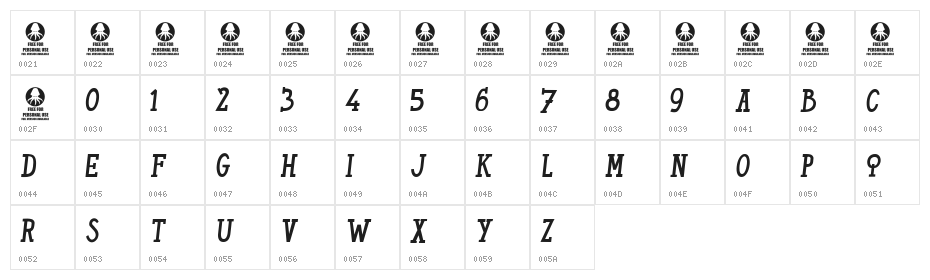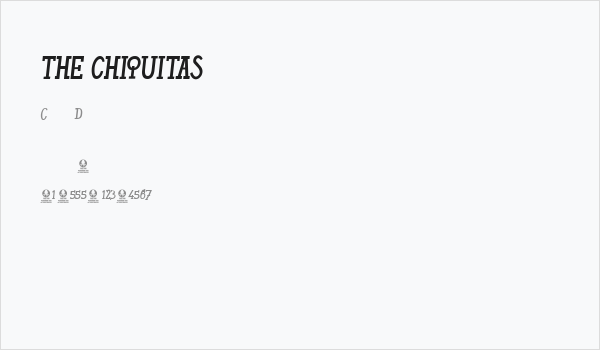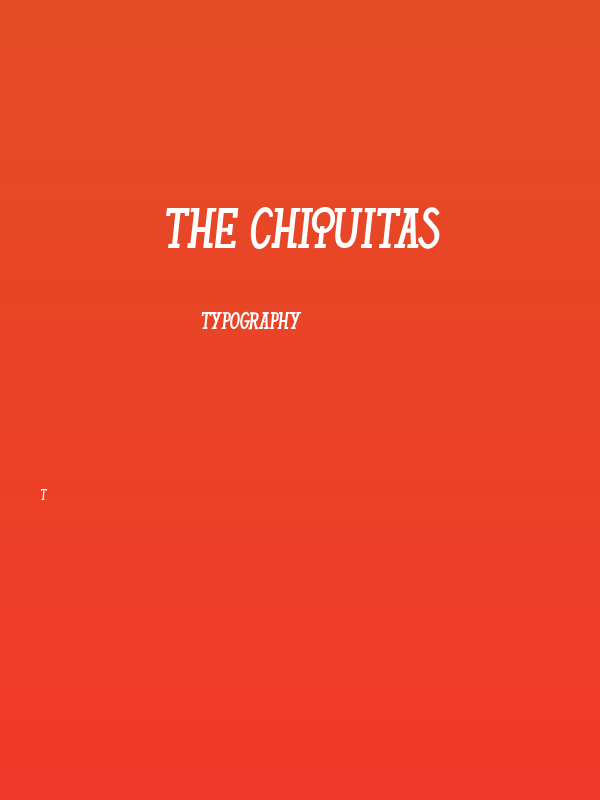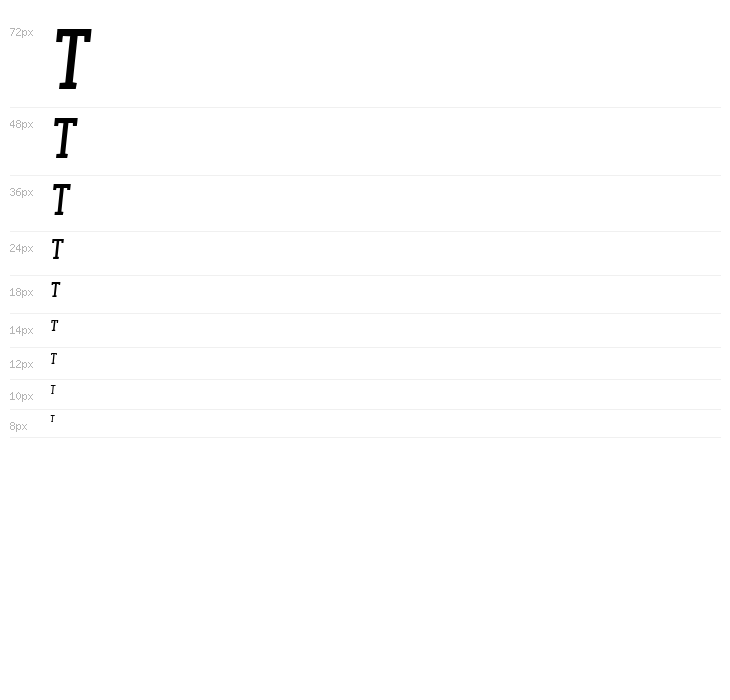
THE CHIQUITAS Font
THE CHIQUITAS Description
This font features a bold and dynamic style with a strong presence. The characters are slightly condensed, giving them a compact appearance. The serifs are pronounced, adding a touch of elegance and tradition to the overall design. The uppercase letters are particularly striking, with a slight forward slant that suggests movement and energy. The numerals are consistent with the letterforms, maintaining the same boldness and style. This font is versatile, suitable for various design projects that require a bold and impactful typeface.